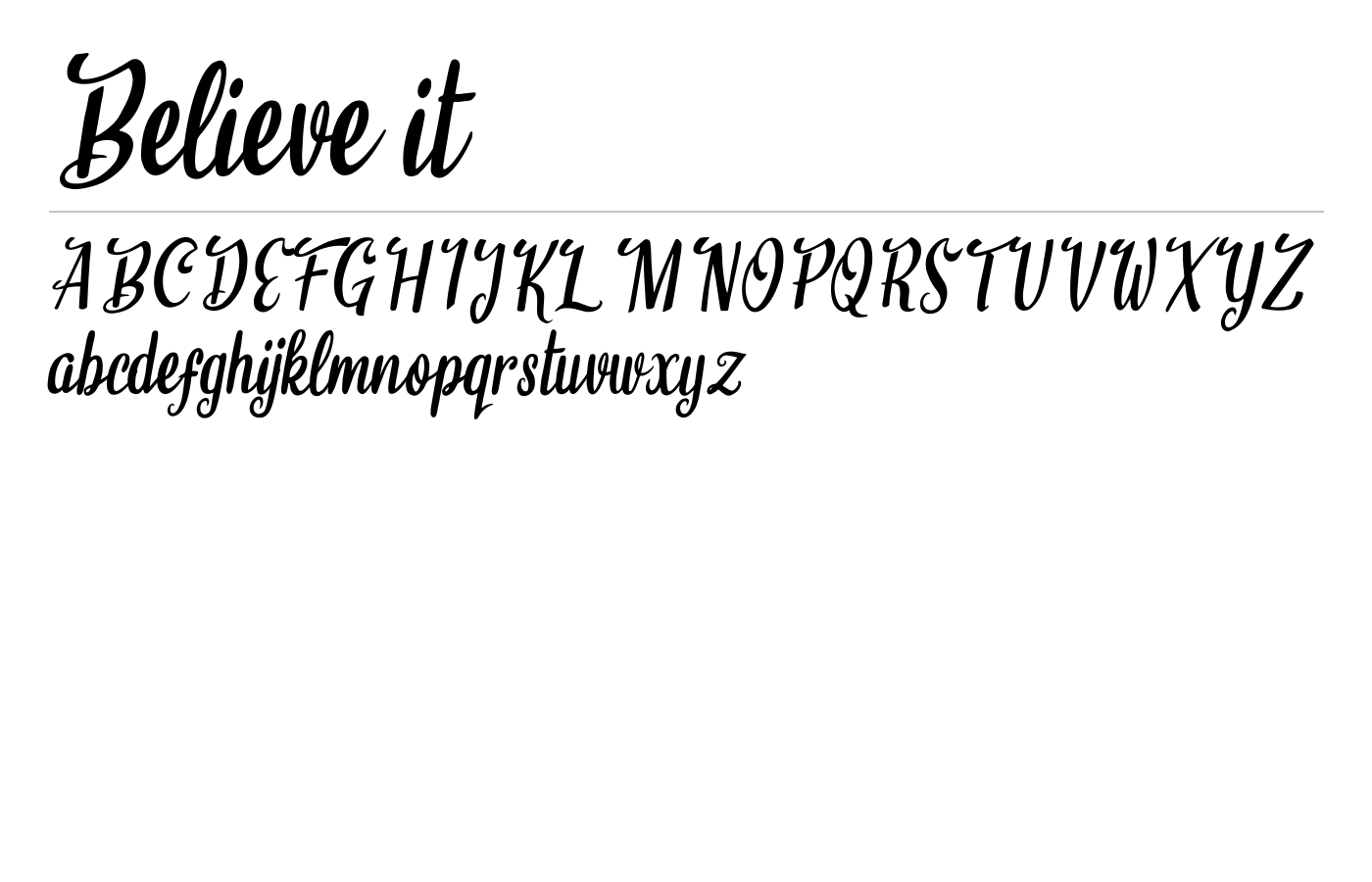
Believe it is a stylish script font with an elegant, handwritten feel characterized by its balanced stroke contrast and tall, narrow letterforms. It conveys a sense of sophistication and charm, making it ideal for branding, invitations, and creative headlines where a personal yet refined touch is desired.
Believe it Font